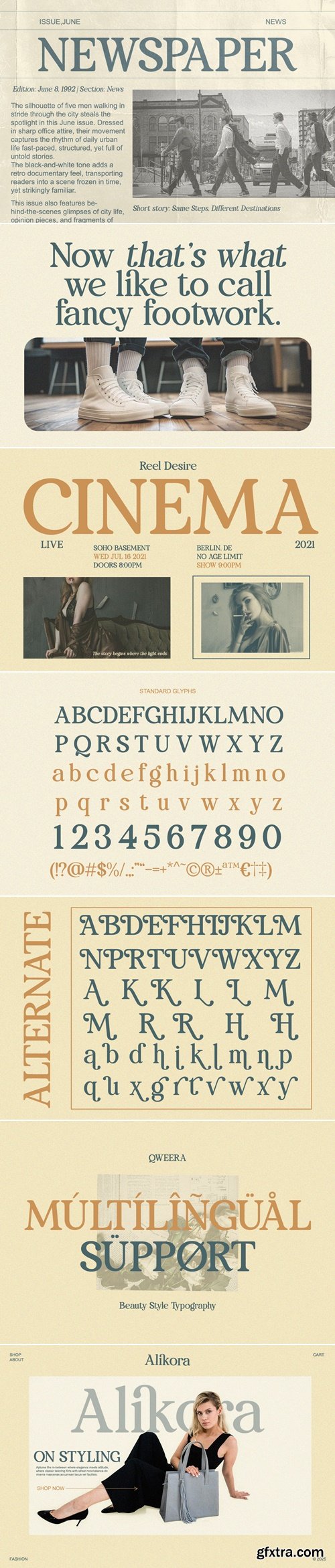
CreativeMarket - Vintage Odities - Retro Serif
- Vintage Odities is a bold retro serif font that blends nostalgic charm with a modern twist.
- Inspired by vintage posters, 70s print ads, and classic editorial typography, this typeface is designed for projects that demand timeless personality and artistic flair. With its ligatures, italic style, and multilingual support, Vintage Odities adds a unique soul to every creative work.